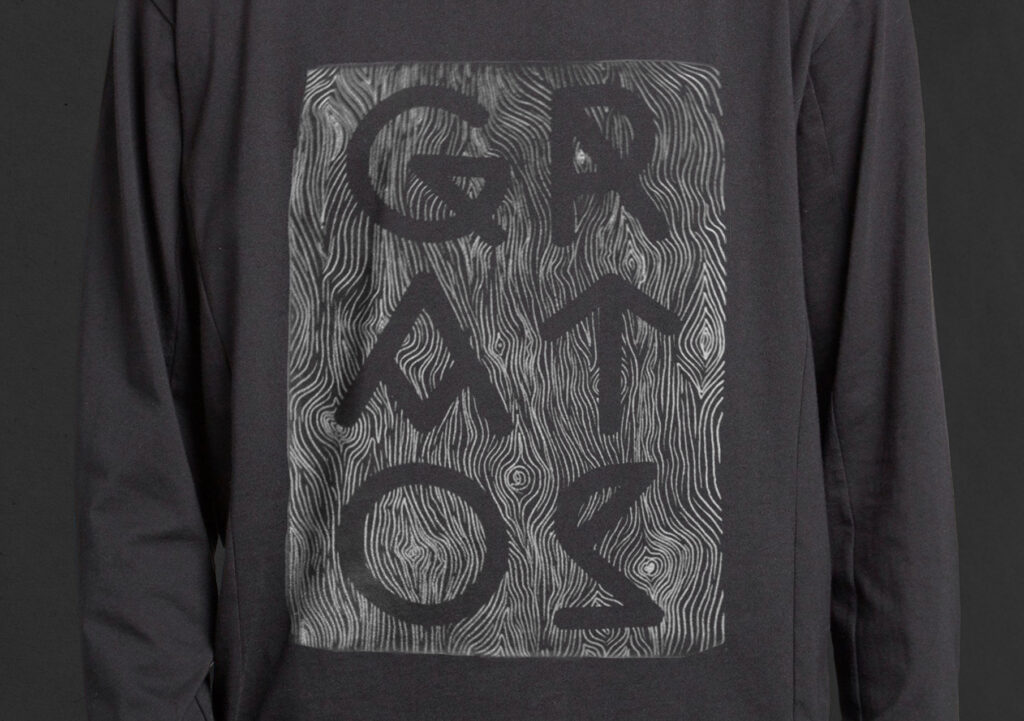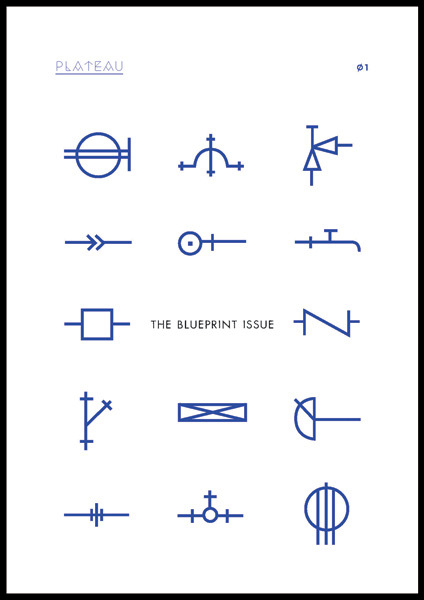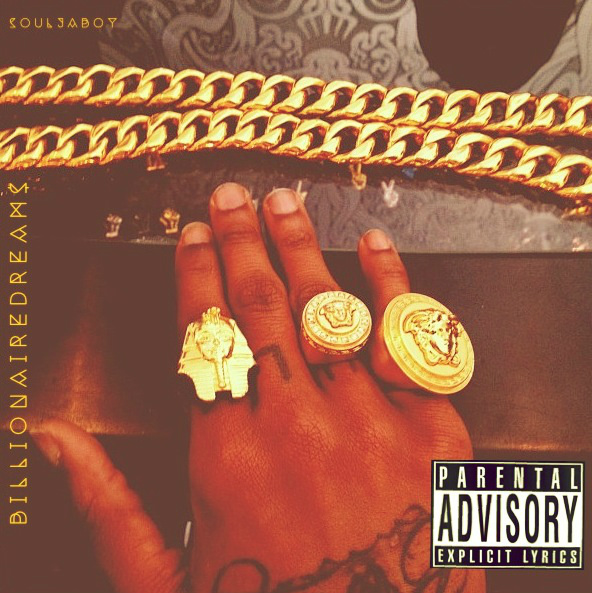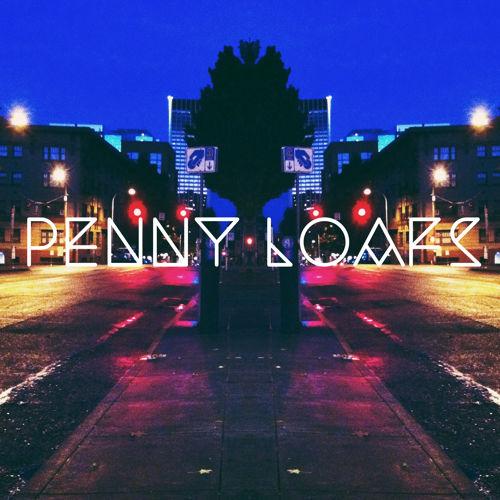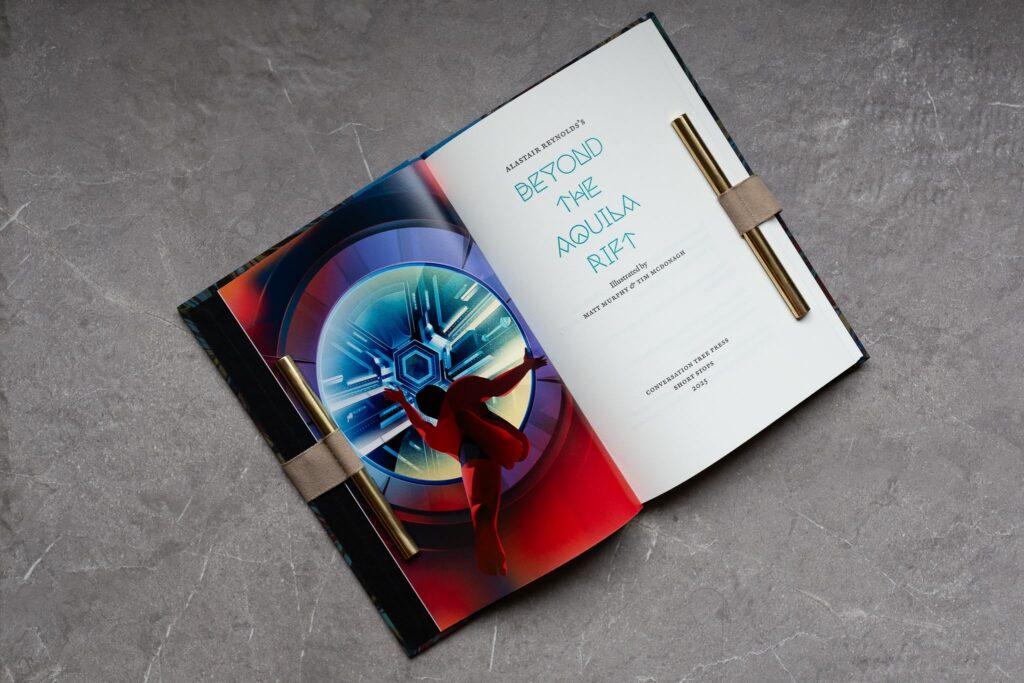
About Nemoy
Nemoy is a geometric display font family. It comes in five weights, from Light to Black, contains a full glyphs set, including multilingual support, openType features and also a variable font version.
The Nemoy font as originally been designed for a student project about Philip K. Dick, mostly for books cover titles, but Nemoy can be used for a wide range of projects.
Bastien Sozeau
2010 — V.04 update 2024
Available in 5 weights & variable
Nemoy in use
amoinsb TeeShirts
PLATEAU print Logo
Souljaboy Album Cover
Penny Loafs Album Cover